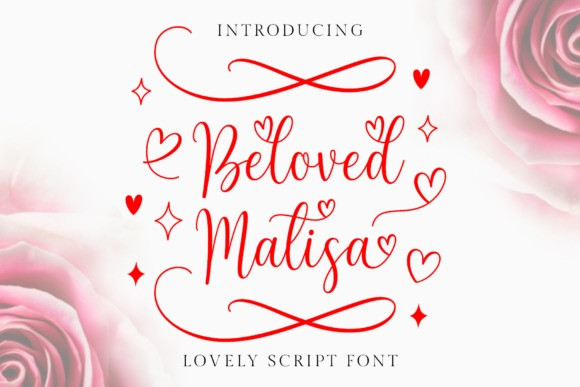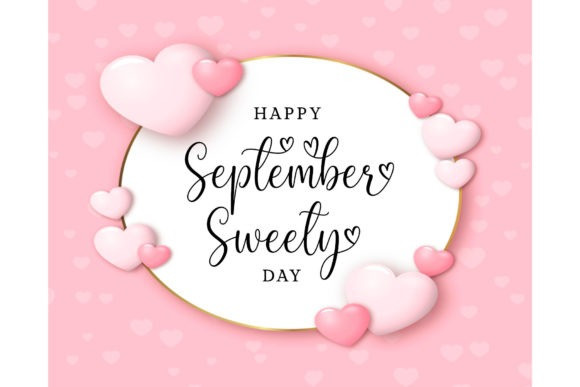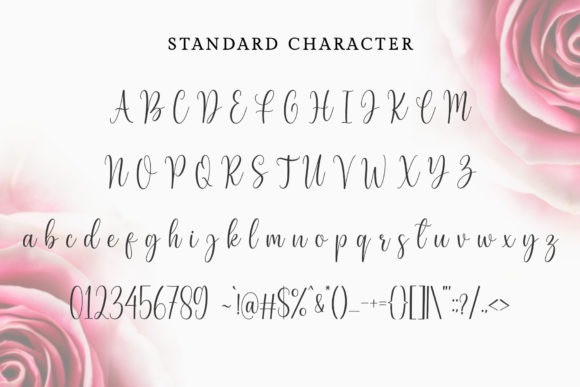
Rietha Script Font
Rietha Script Font is a lovingly handwritten and we keep this font looks elegant, classy, readable, stylish, catchy and easy to use. Golden mind is the great choice for watermark on photography, signature or signature logo design, quotes, album cover, business card, and many other design project.  Golden mind is here to make your work to high level!!!